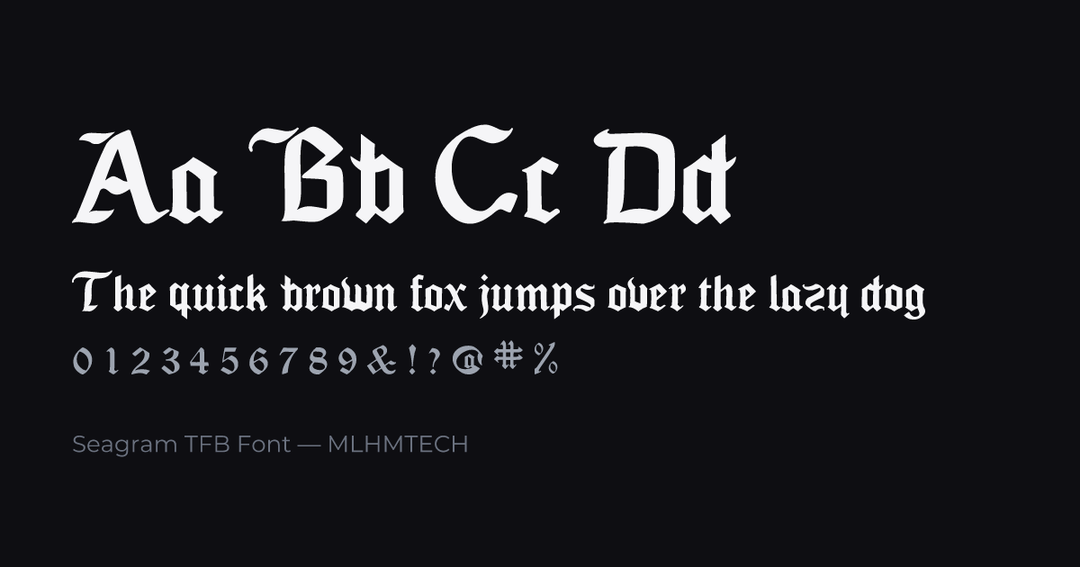
Seagram TFB Font
Seagram TFB is an elegant serif font that brings a vintage, classic feel to any design. Ideal for branding, logos, and headlines.
Seagram TFB is a beautifully crafted serif typeface that exudes elegance and sophistication. Its classic letterforms are perfect for projects that require a timeless, vintage aesthetic. Whether you're designing a logo, creating a brand identity, or setting headlines, Seagram TFB adds a touch of refinement.